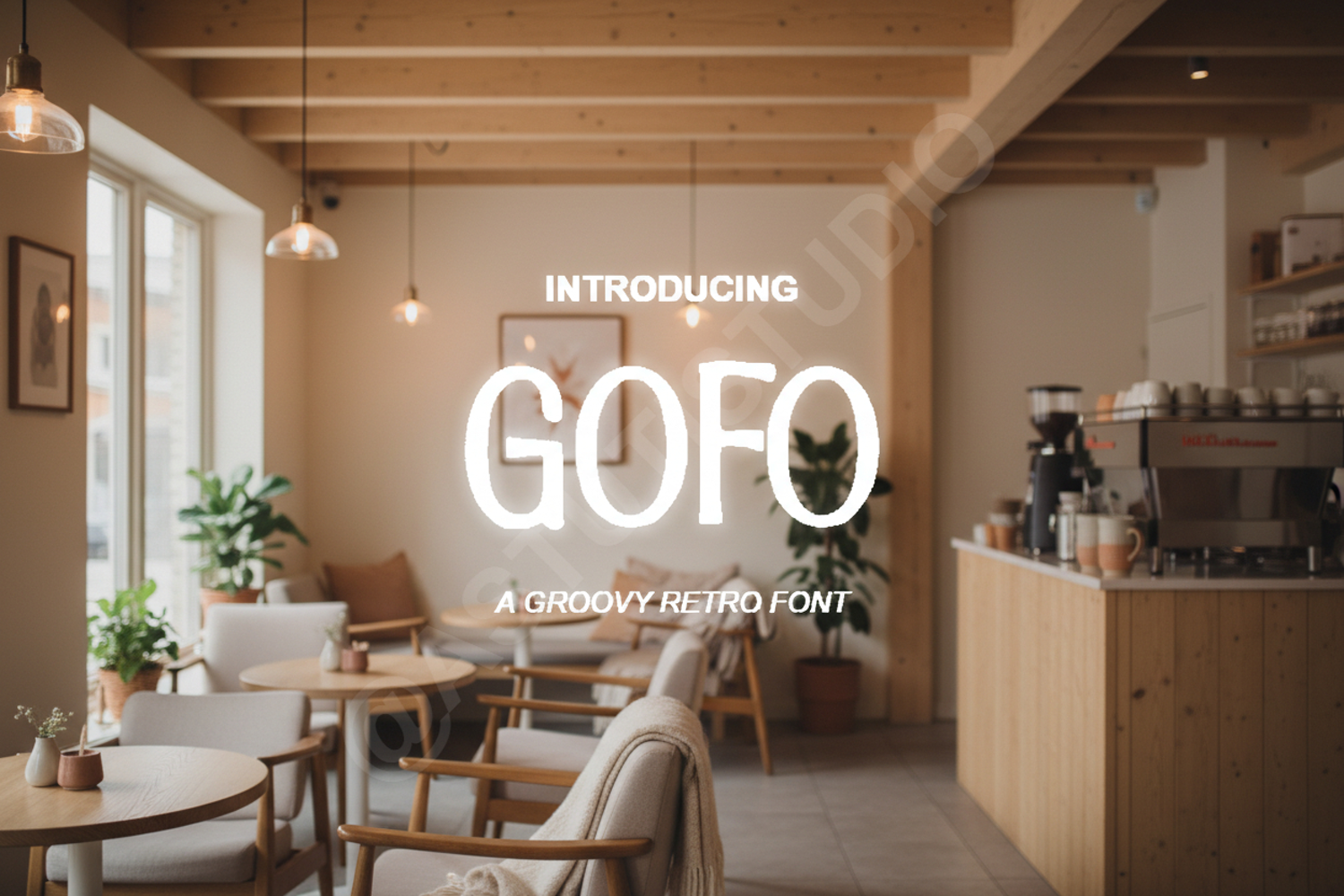
Gofo - Modern Geometric Sans Serif Typeface
Gofo
Gofo is a premium geometric sans serif typeface designed for clarity, impact, and ultimate versatility. With its clean lines and perfectly balanced proportions, Gofo brings a professional and contemporary aesthetic to any creative project. This font is meticulously crafted to ensure high legibility while maintaining a sophisticated, minimalist edge that stands out in both digital and print mediums.
- Branding and Logo Identity: Create a memorable and professional brand presence.
- Social Media Graphics: Perfect for high-engagement Instagram posts and Pinterest pins.
- Minimalist Poster Design: Deliver your message with clarity and style.
- Editorial and Magazine Layouts: Ideal for clean body text or bold headers.
- Website Headers and UI Design: Enhance user experience with a modern web-safe look.
- Corporate Presentations: Elevate your pitch decks with a premium typographic touch.